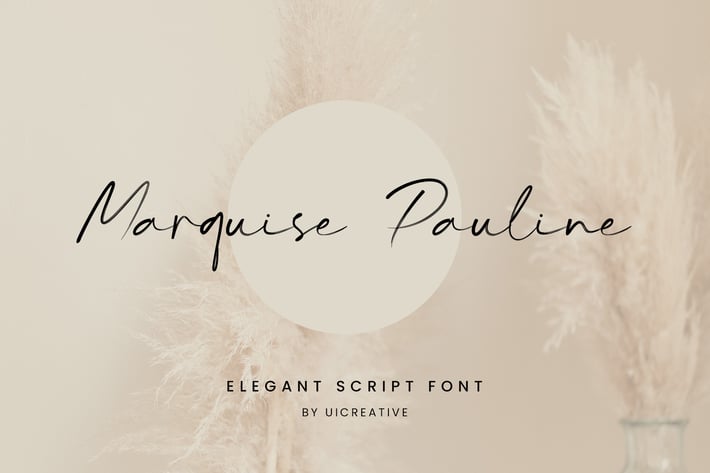
Marquise Pauline Signature Font
Introducing our new product the name is Marquise Pauline Signature Font. The modern signature font feels beautiful classy, elegant, and modern. This font is ideally suited for a wide variety of projects, such as signature, stationery, logo, wedding, typography quotes, magazine or book cover, website header, clothing, branding, packaging design, and more, also for fashion-related branding or editorial design and displays both masculine and feminine qualities.